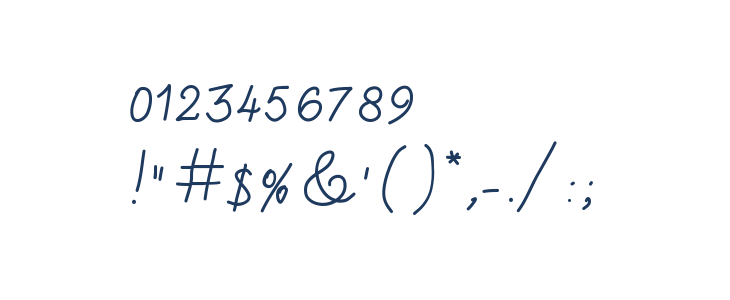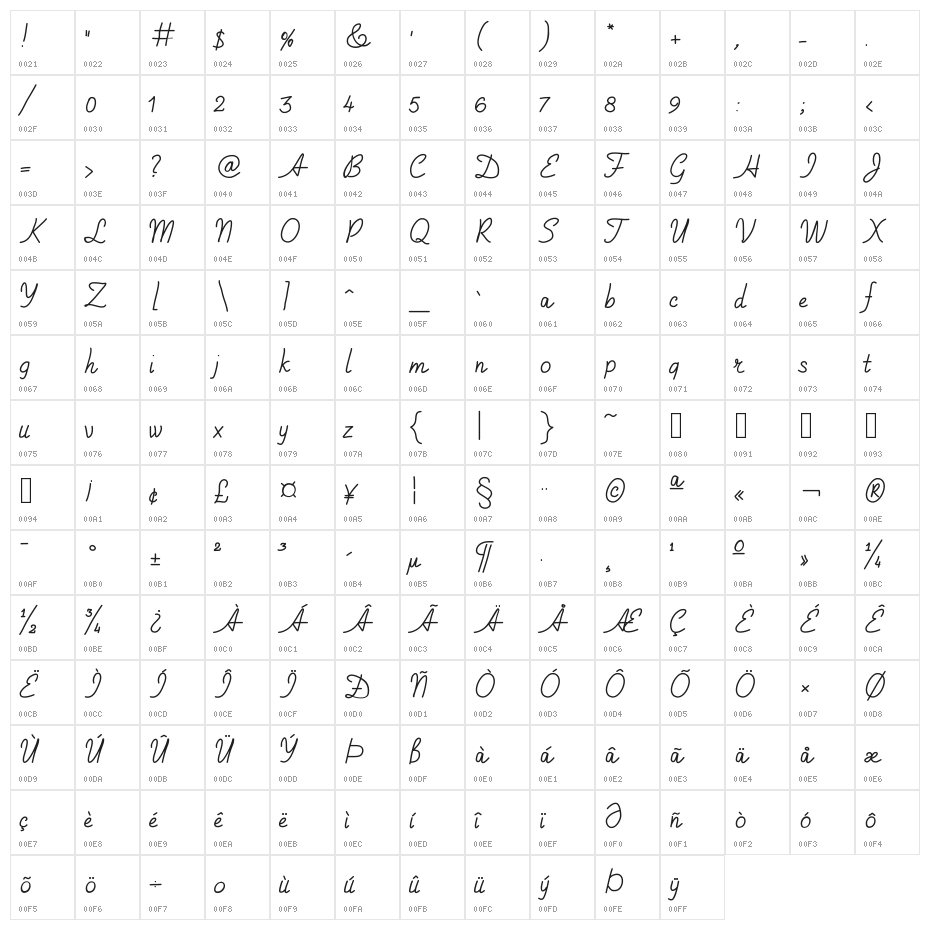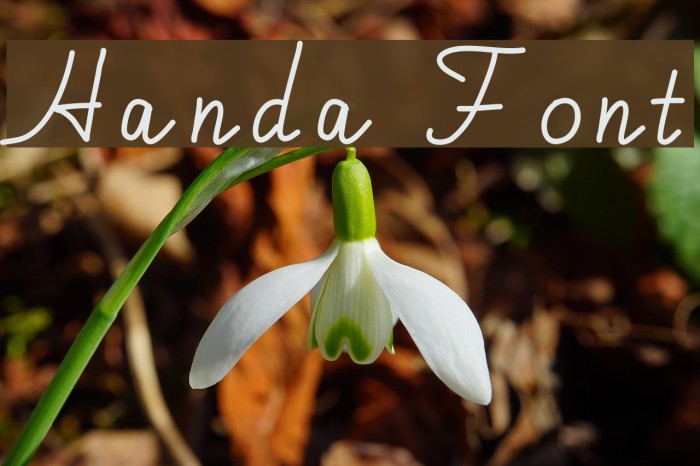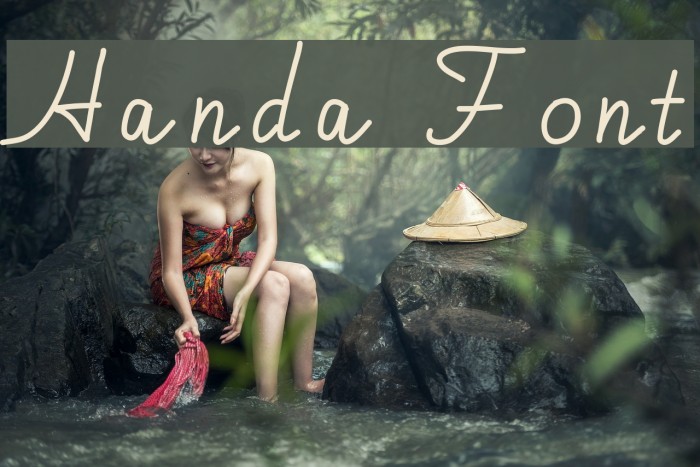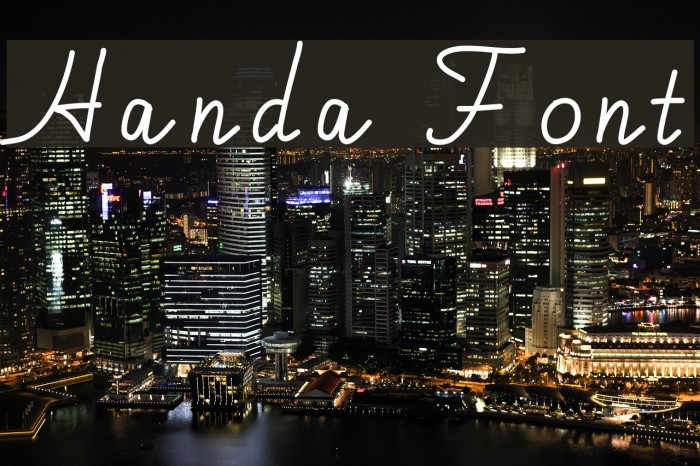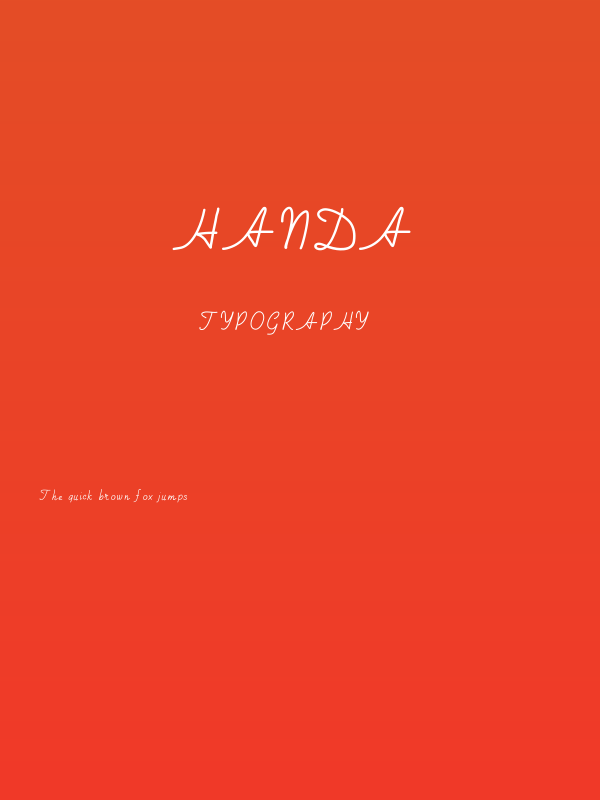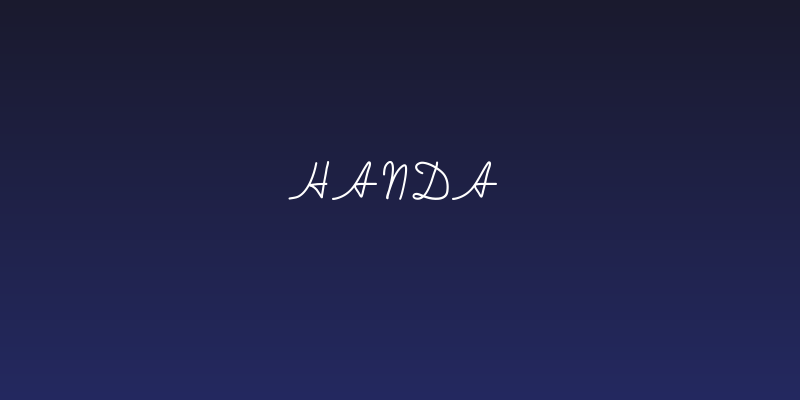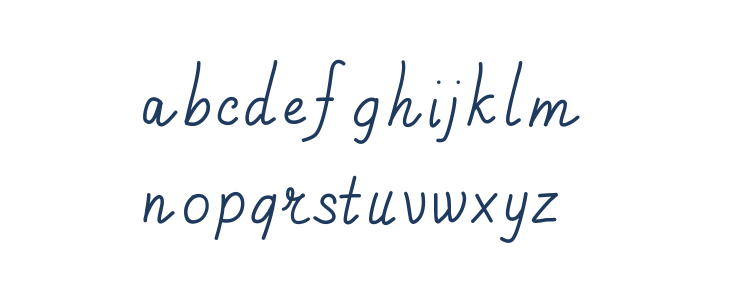
Handa Font
Handa Description
This font features a fluid, handwritten style that exudes elegance and charm. The uppercase letters are slightly slanted and connected, giving a sense of continuity and flow. The lowercase letters maintain a consistent stroke width, enhancing readability while preserving a casual, personal touch. Numbers and special characters are crafted with the same attention to detail, ensuring a cohesive look across all text elements. The overall design is both sophisticated and approachable, making it suitable for a variety of creative applications.
| Proposed Projects | Ideal for wedding invitations, personal branding, greeting cards, and artistic projects. |